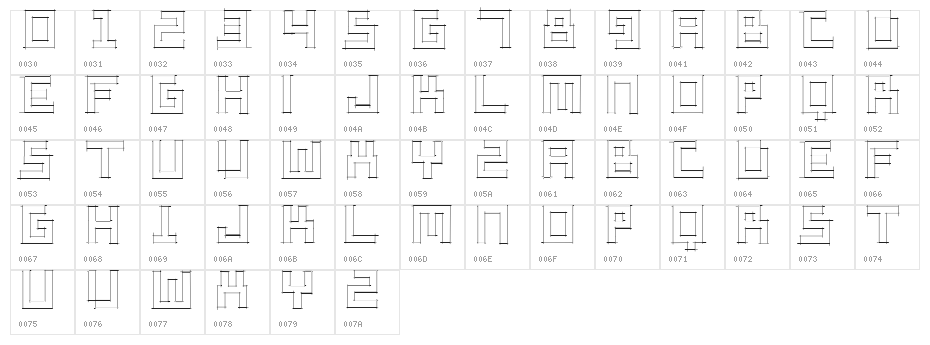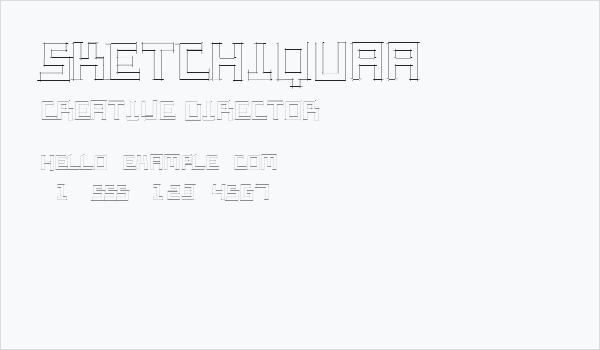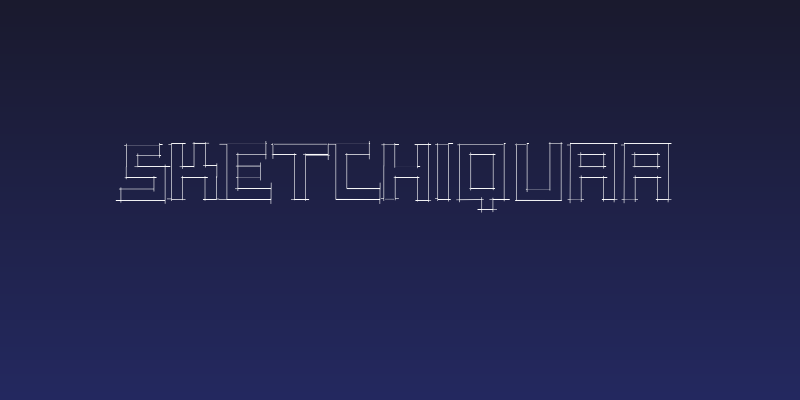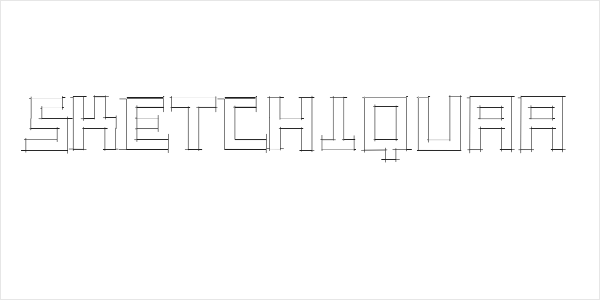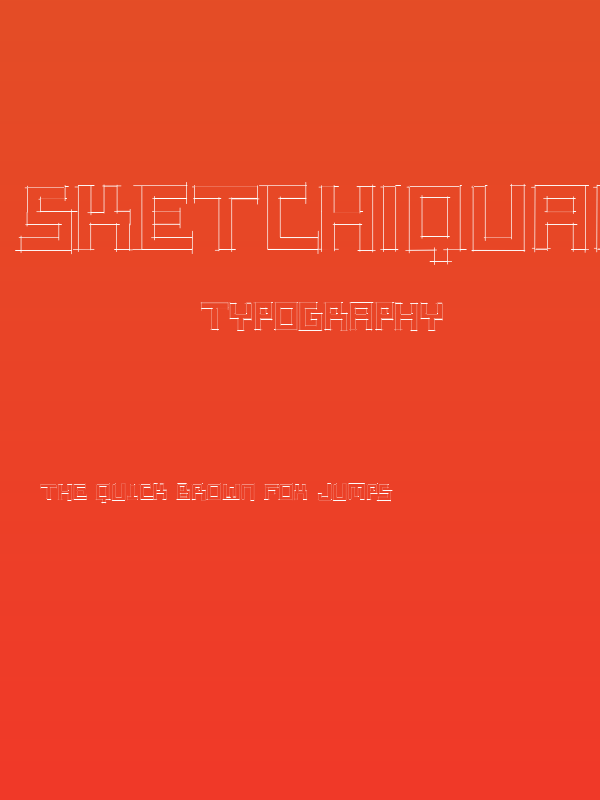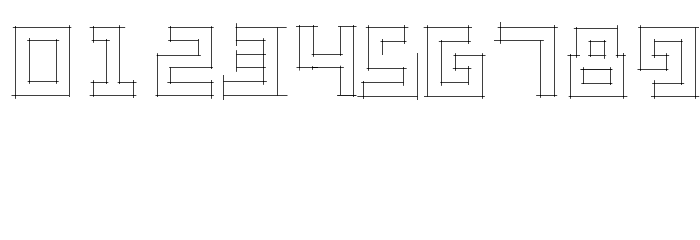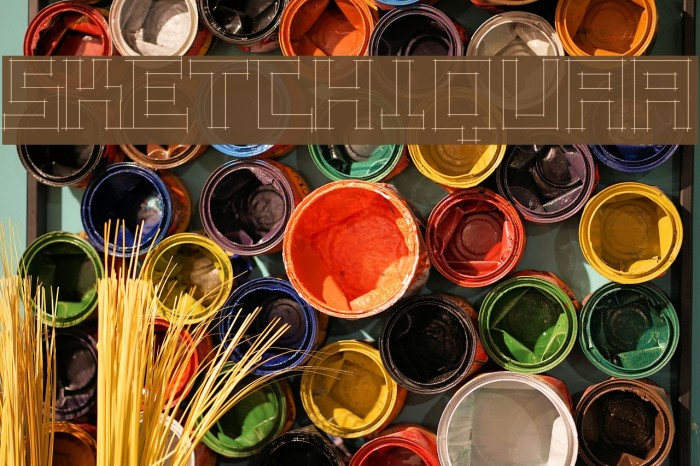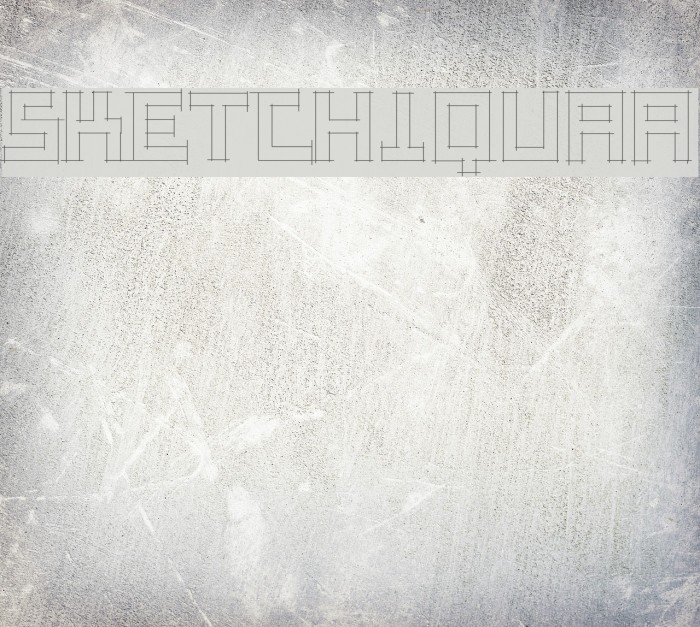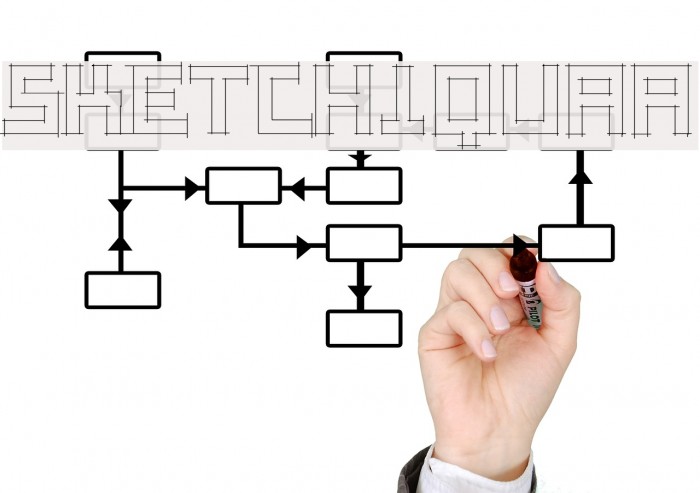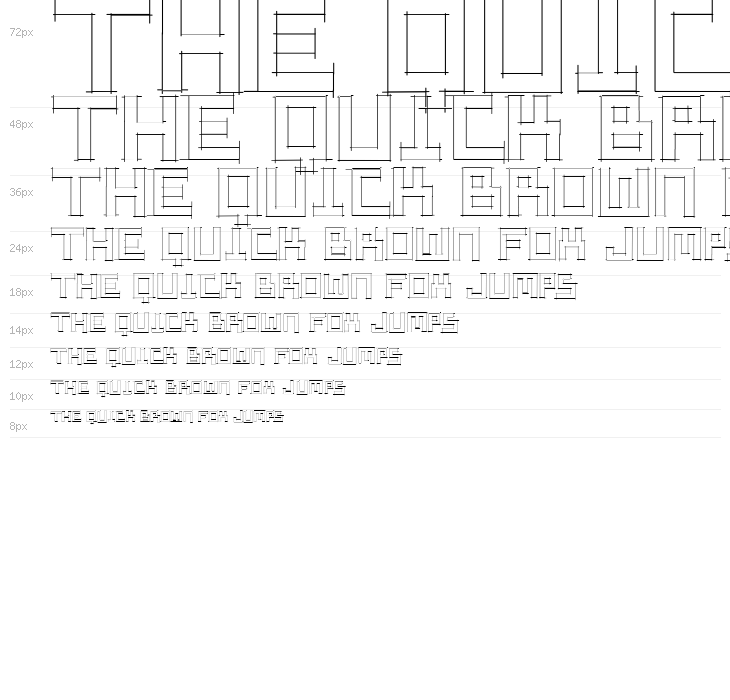
SketchiquaA Font
SketchiquaA Description
This font features a geometric and structured design, characterized by its linear and angular elements. Each character is composed of straight lines and right angles, giving it a mechanical and architectural feel. The uniformity in line thickness and the precise alignment of each segment create a sense of order and precision. The font's design is reminiscent of technical drawings or blueprints, with a modern and industrial aesthetic. Its unique style makes it stand out, offering a blend of creativity and functionality.
| Proposed Projects | Ideal for architectural branding, technical manuals, modern art projects, and futuristic designs. |